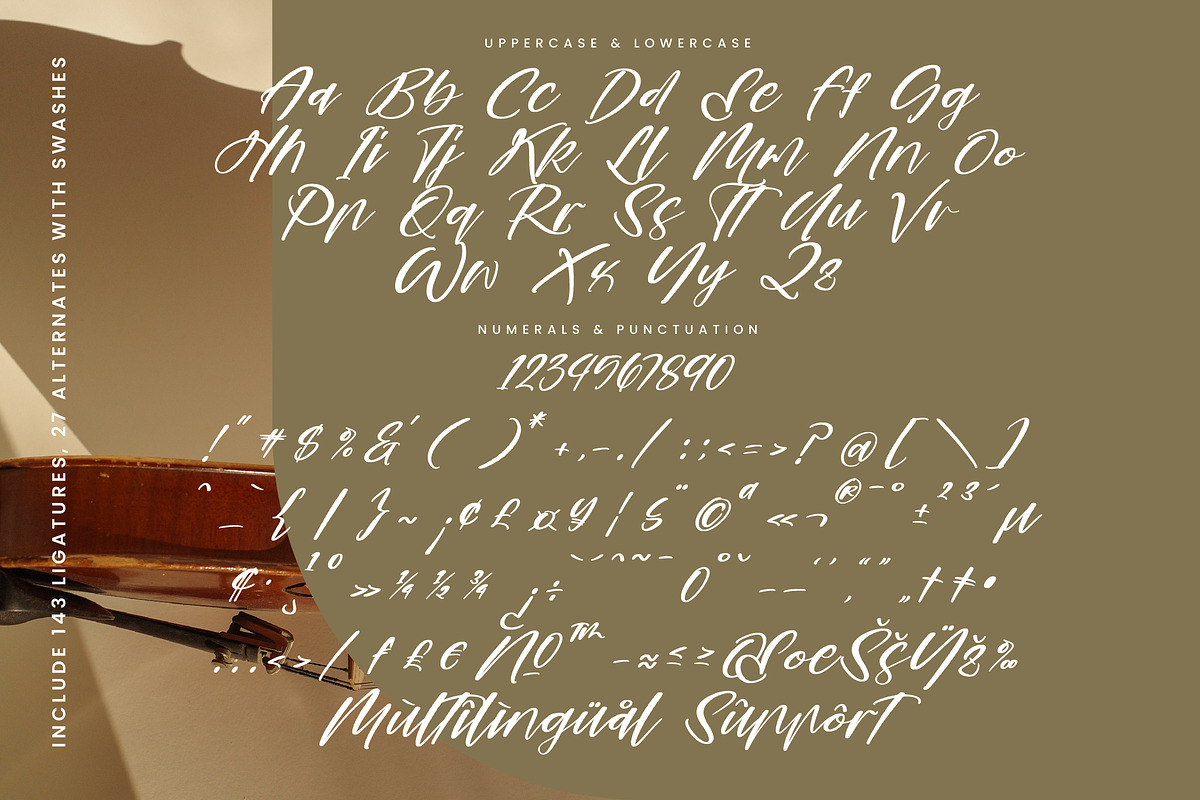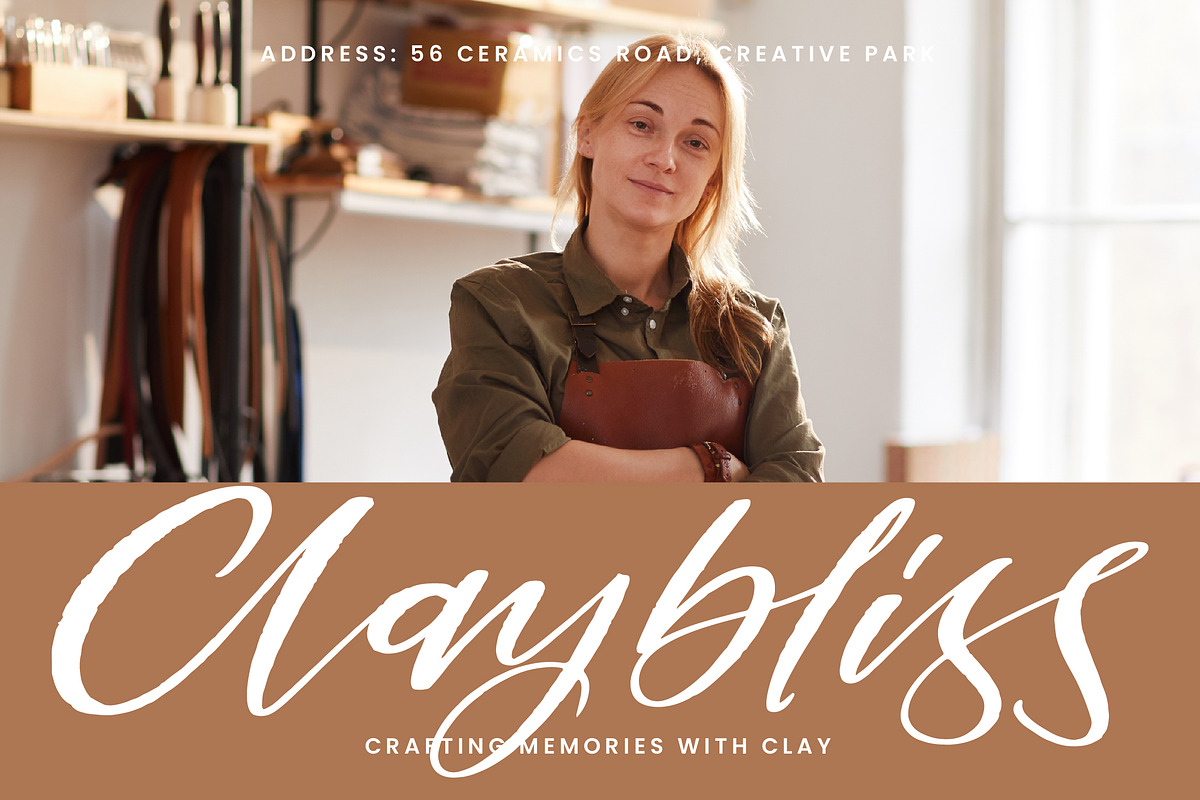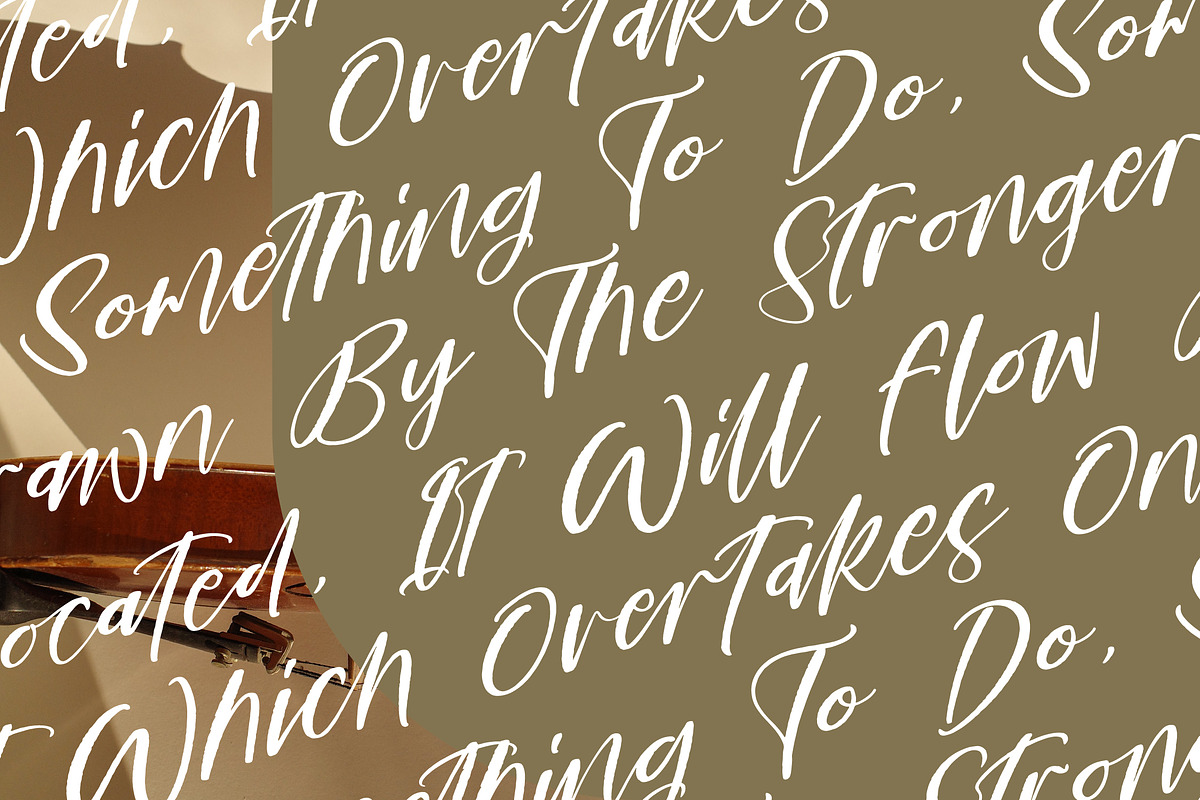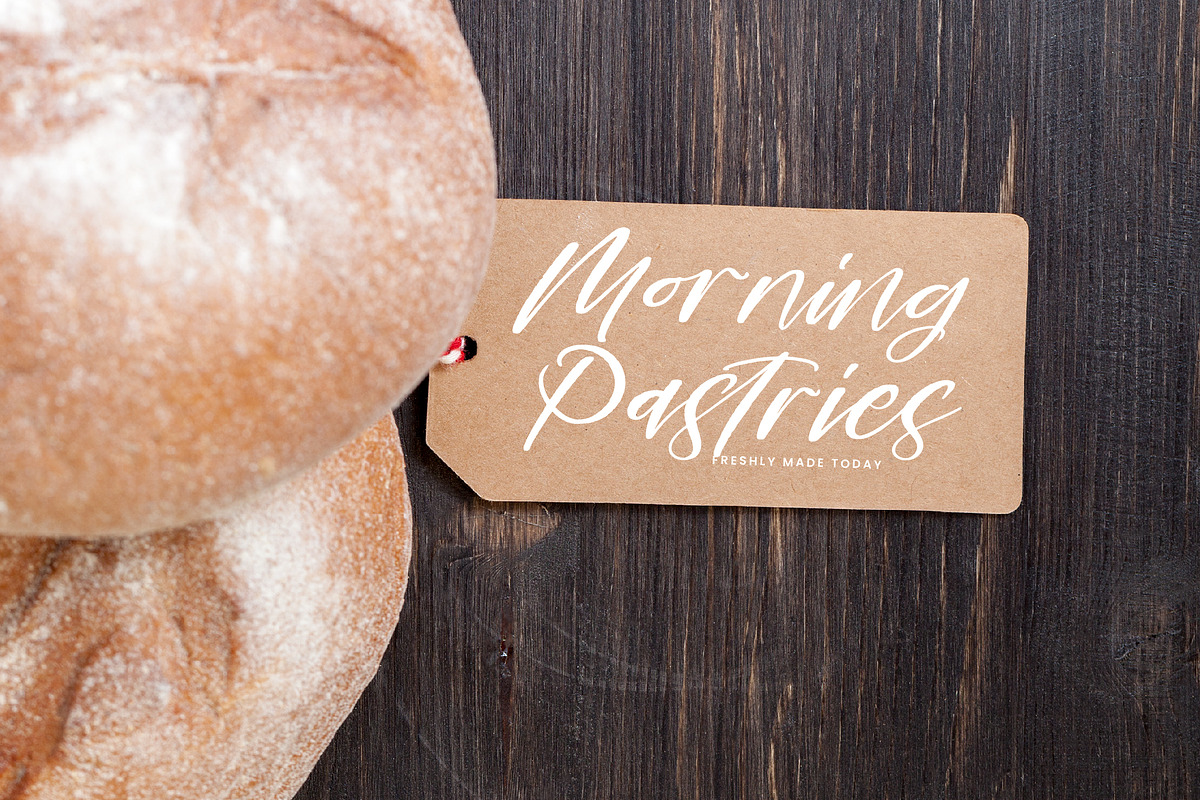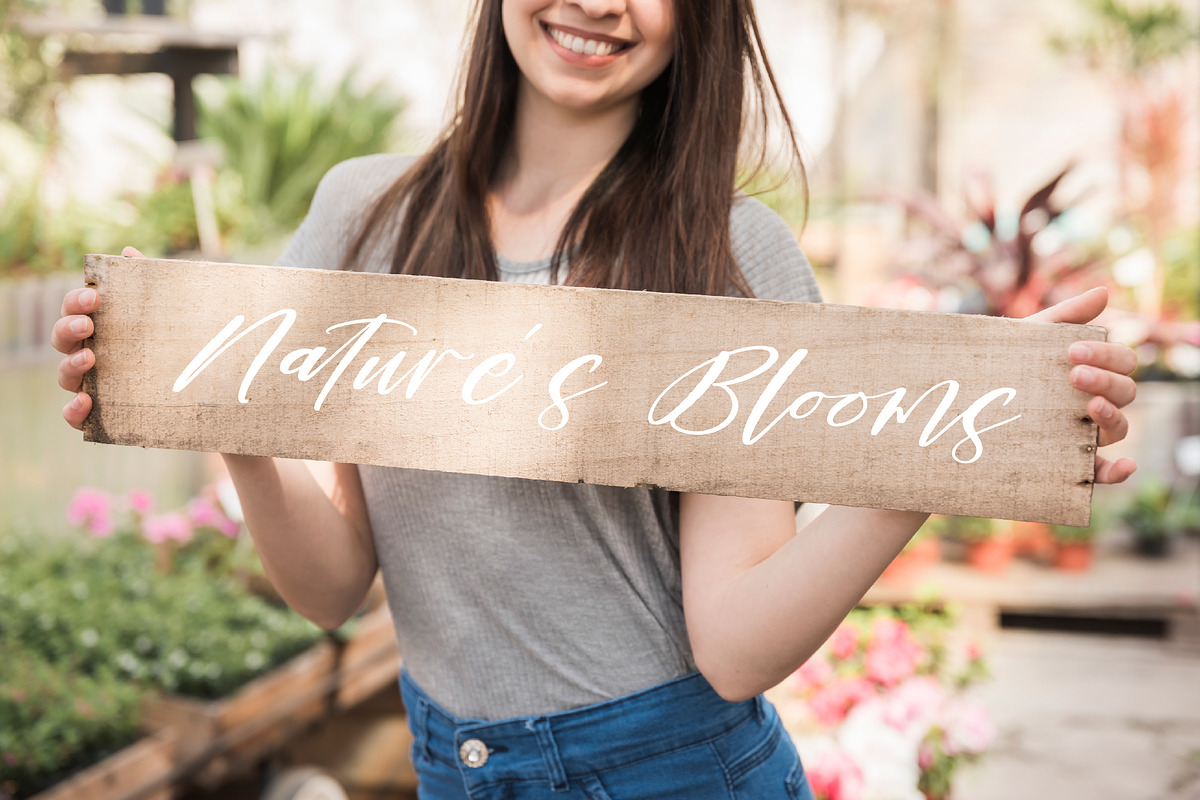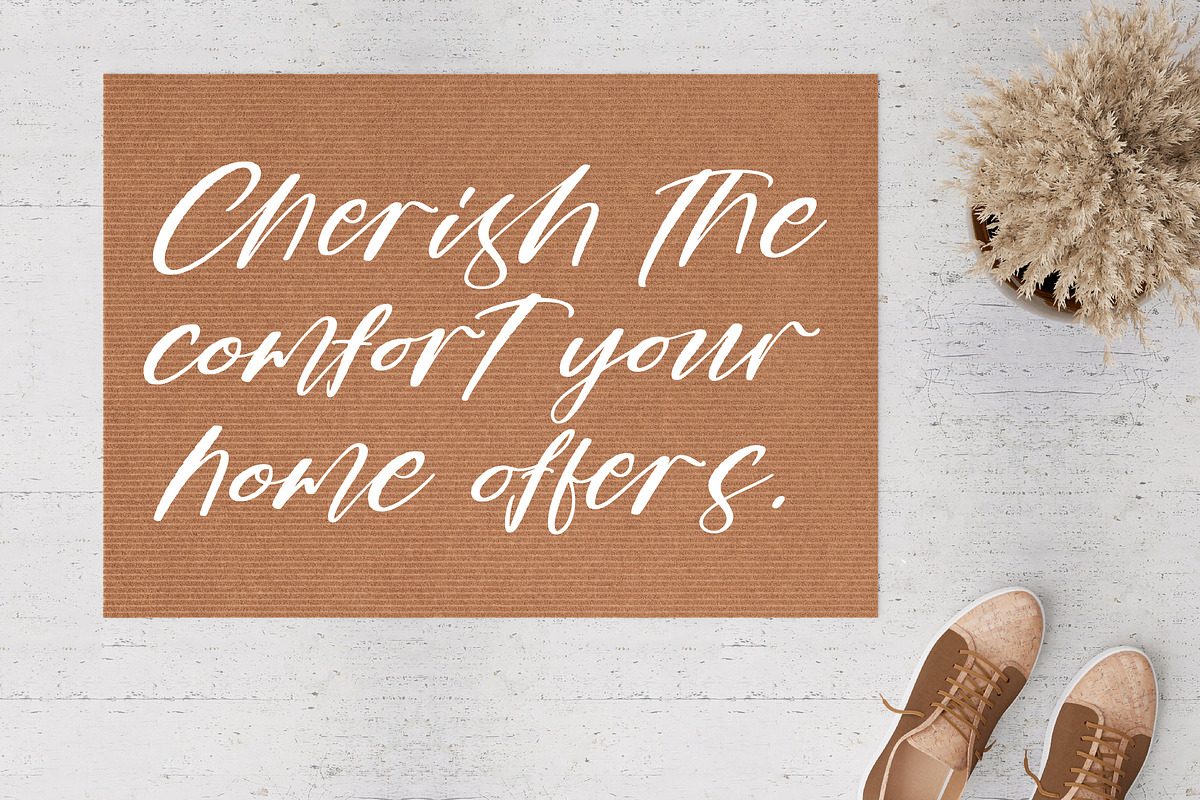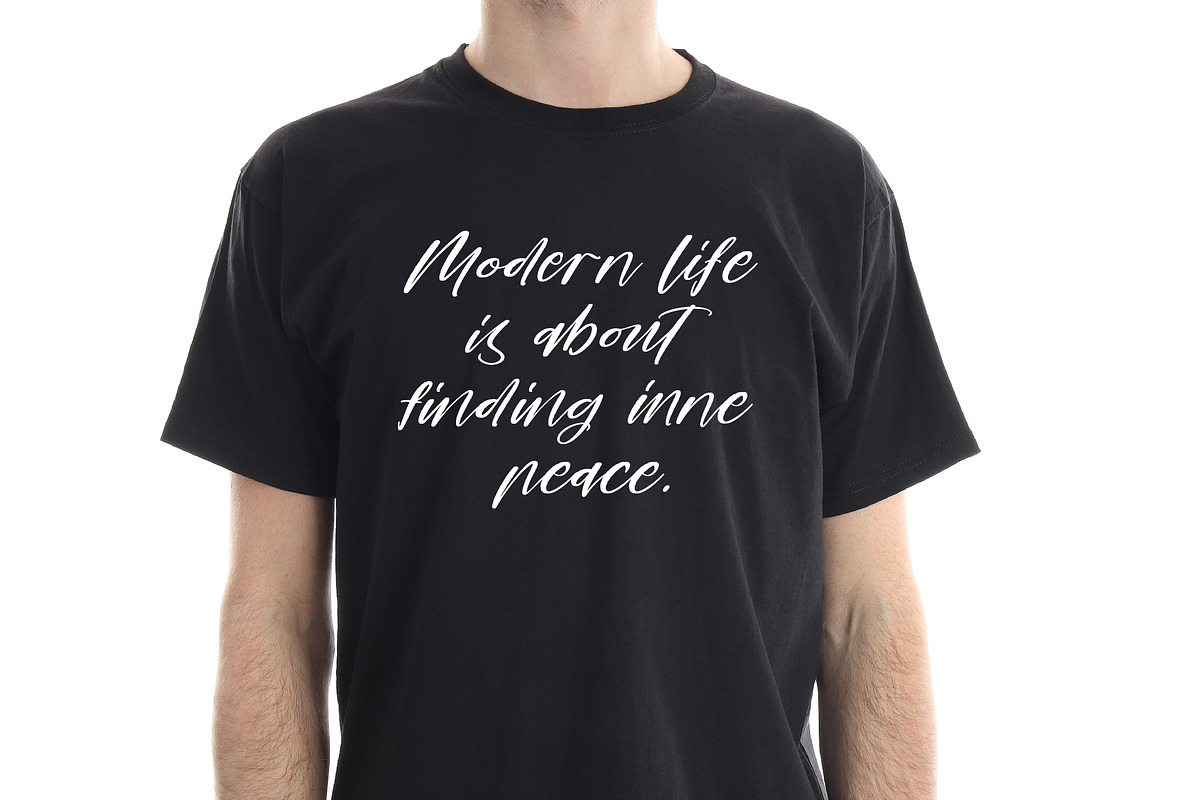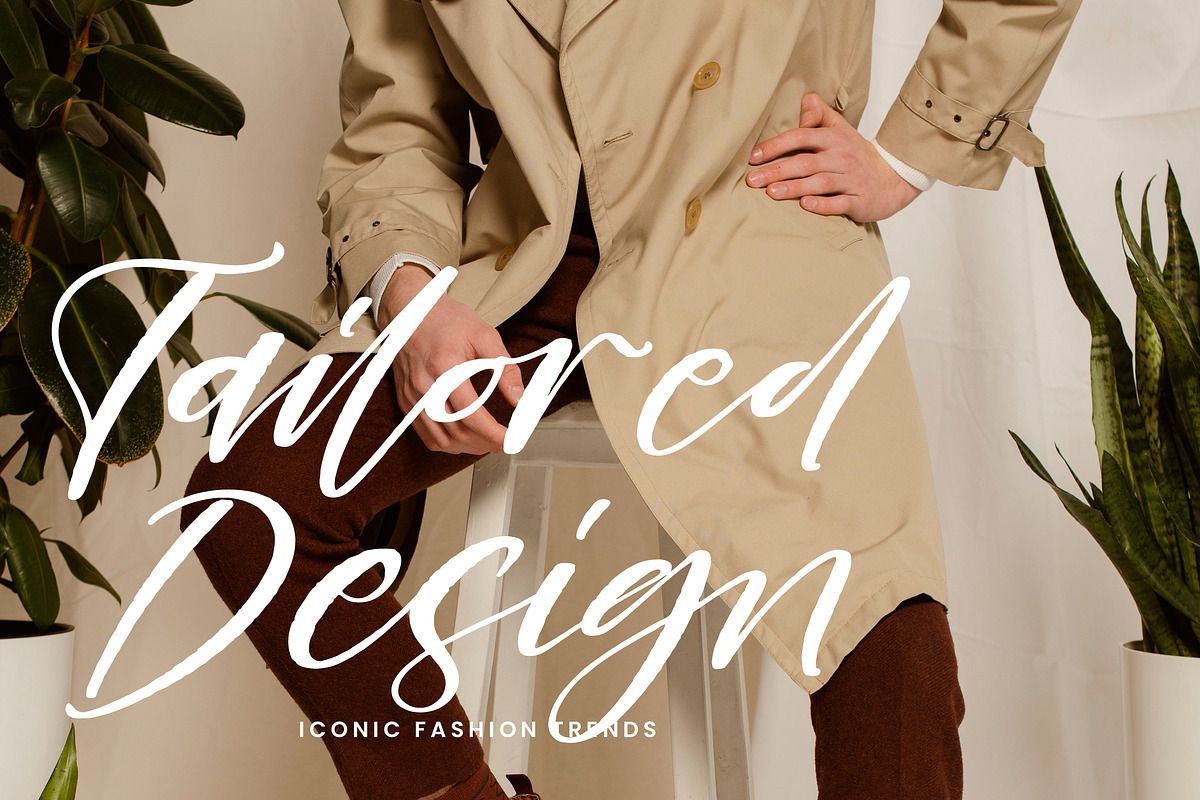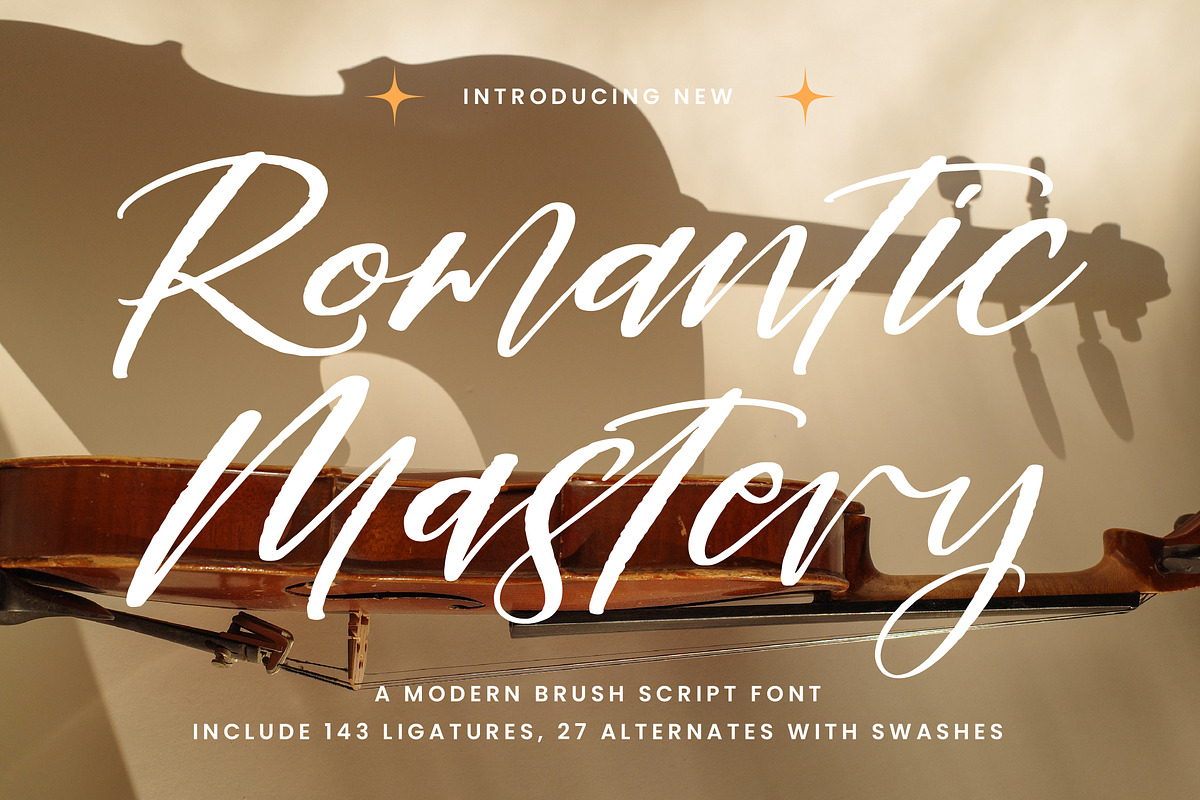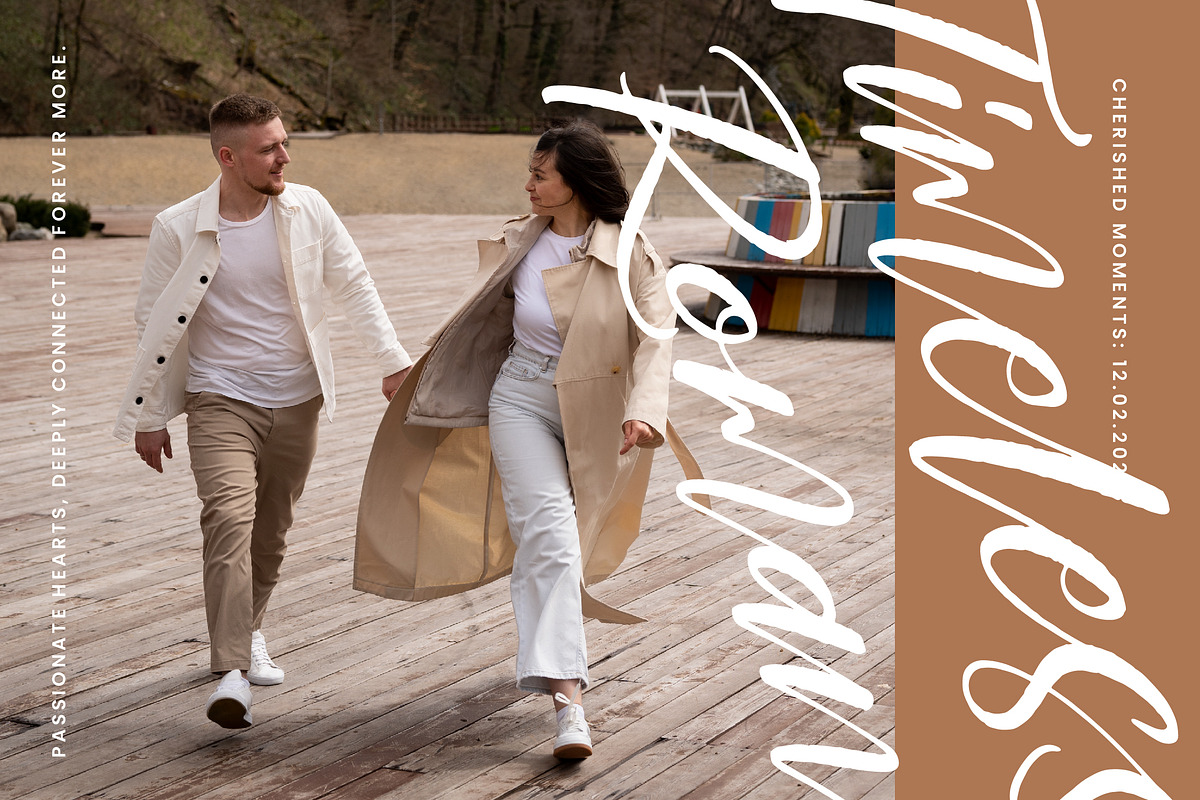
Romantic Mastery Modern Brush Script
Romantic Mastery - Modern Brush Script Font , from Stylishtype.Co , Suitable for any projects such as: logos, branding projects, homeware designs, product packaging, mugs, quotes, posters, shopping bags, t-shirts, book covers, name card, invitation cards, greeting cards, label, photography, watermark, special events, and all your other luxury and beautiful projects that need a Luxury Script taste.
- 143 Ligature 27 Alternates & Swashes